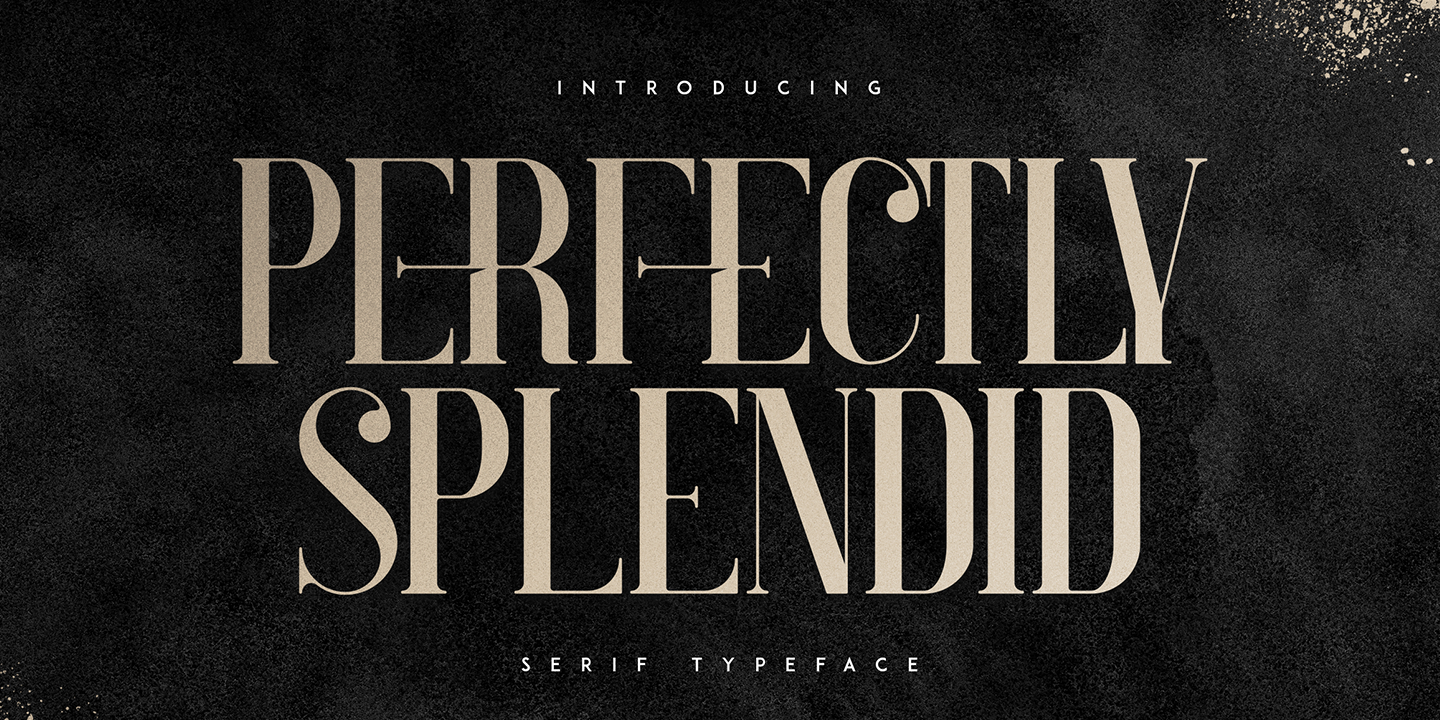
Perfectly Splendid Font Free Download – Stylish and Sophisticated Typeface for Elegant Designs
Looking for a font that exudes elegance and sophistication? Perfectly Splendid Font Free Download is a beautiful serif typeface designed to add a refined and stylish touch to your creative projects. Perfect for branding, invitations, editorial layouts, and packaging, this font elevates your designs with its classic yet modern appeal.
Perfectly Splendid features crisp lines and balanced proportions, making it highly readable while maintaining a sense of luxury. Whether you’re creating logos, headlines, or body text, this font delivers a polished and professional finish.
Add a touch of class and sophistication to your typography with Perfectly Splendid — a font that perfectly complements any elegant design.